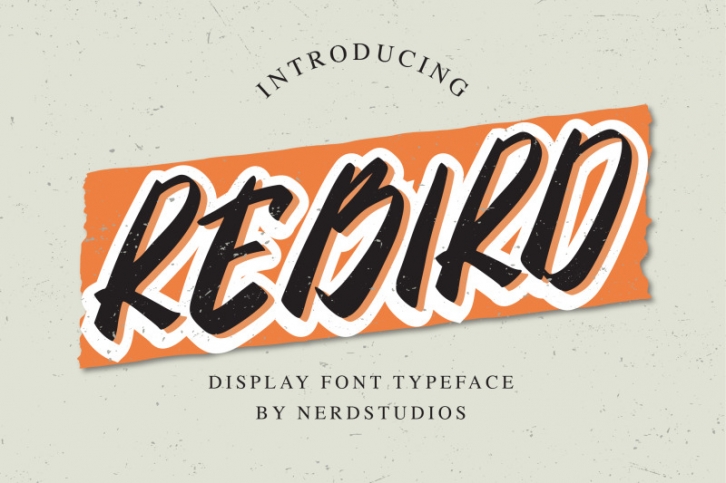
Rebird is a Display Font, This font is handmade and has a powerful character, The font is work specialty is good for product design like a Template/mockup, Post, T-shirt, Quote,  New Years Present, typography design,  etc. This product is inspirational for your creative design.